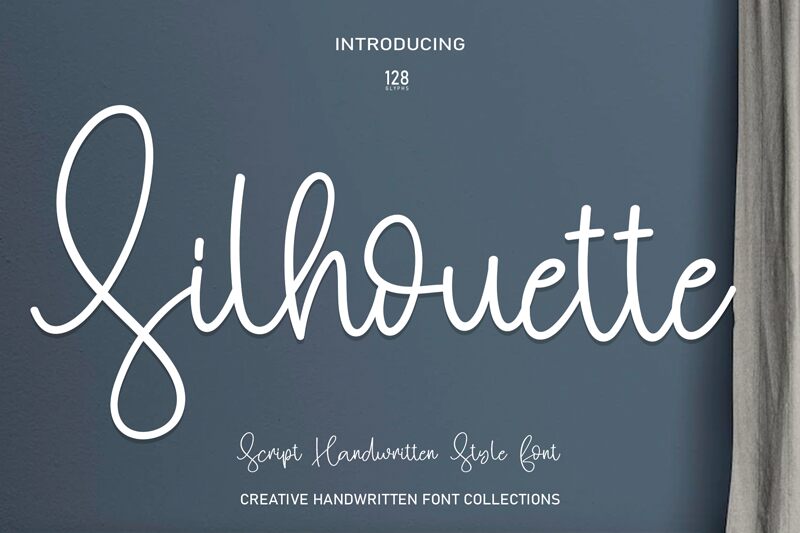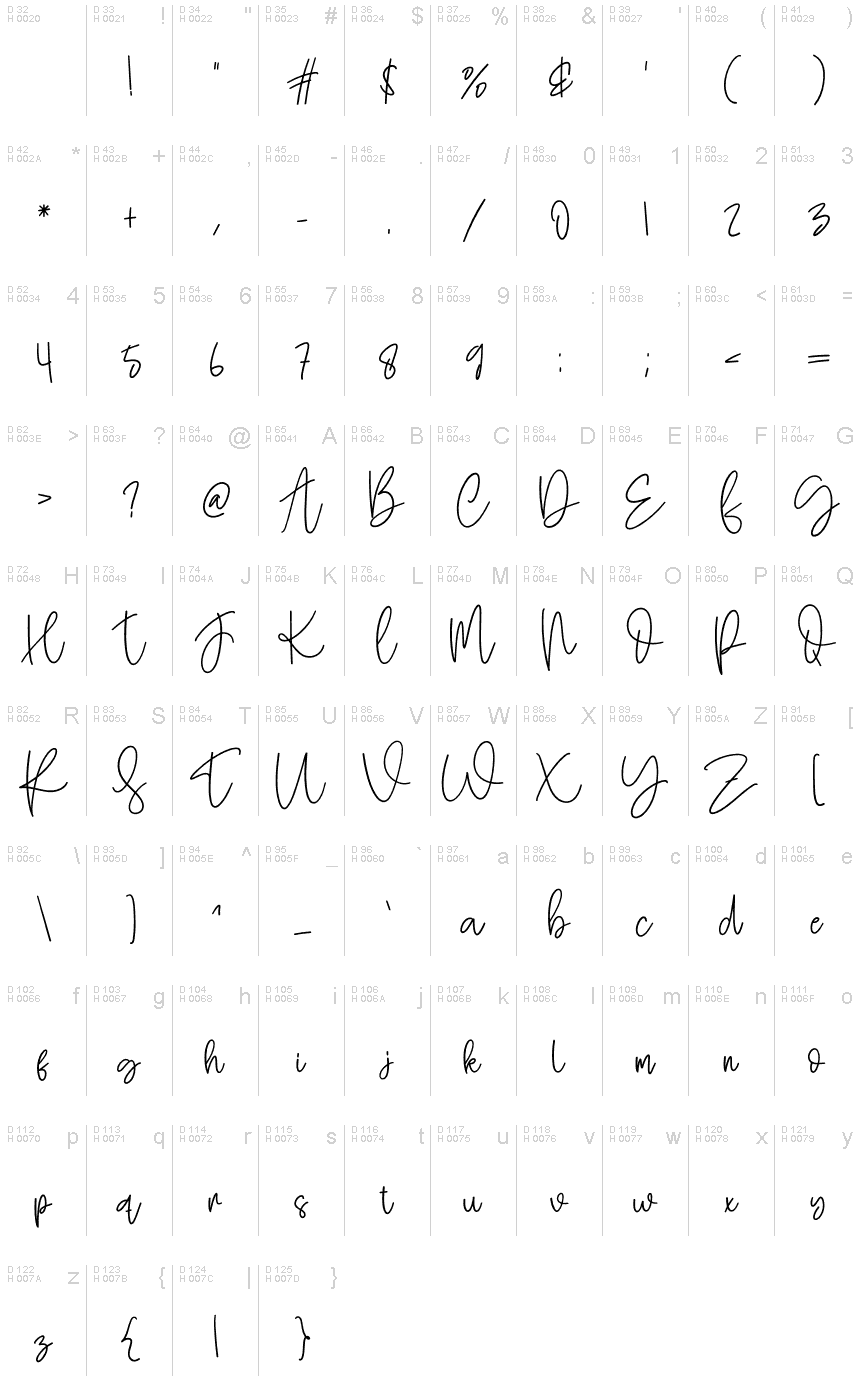
Silhouette
Silhouette, the extraordinary handwritten font crafted by Scratchones, brings a touch of elegance to your creative endeavors. With its delicate strokes and graceful curves, this extra-light typeface exudes sophistication and refinement.
Ideal for wedding invitations, luxury branding, and editorial design projects seeking a poetic aesthetic. Silhouette’s ethereal nature effortlessly captivates readers while adding a hint of whimsy to any composition.
Embrace the uniqueness of this font as it gracefully dances across your digital or print canvas, leaving an indelible mark on your audience's hearts and minds.